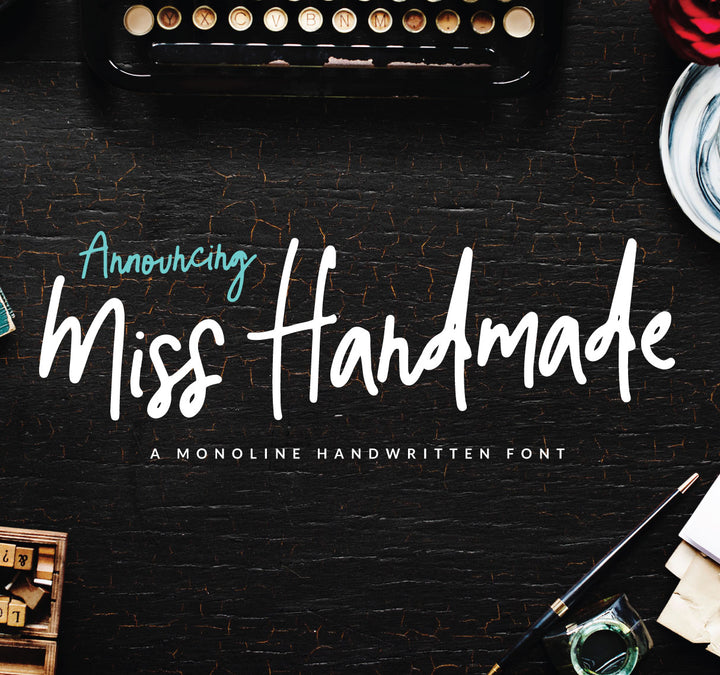
Make some room for Miss Handmade Script Font!
Feeling excited to share with you Birdesign's newest font: Miss Handmade Script Font, a monoline handwritten font with carefully designed natural looks!
This font will make the perfect ingredient for your creative project, whether it's a brand logo, digital or printed ad, book cover, stationery, social media, mobile app, among many more.
For this font, I thought of a style that could look as casual and handwritten as possible without loosing the possibility to work great as body text, focusing on its readability and legibility. This time, I wanted the font to feature several double letter ligatures (14, to be exact) so that when used within letters it would look completely natural.